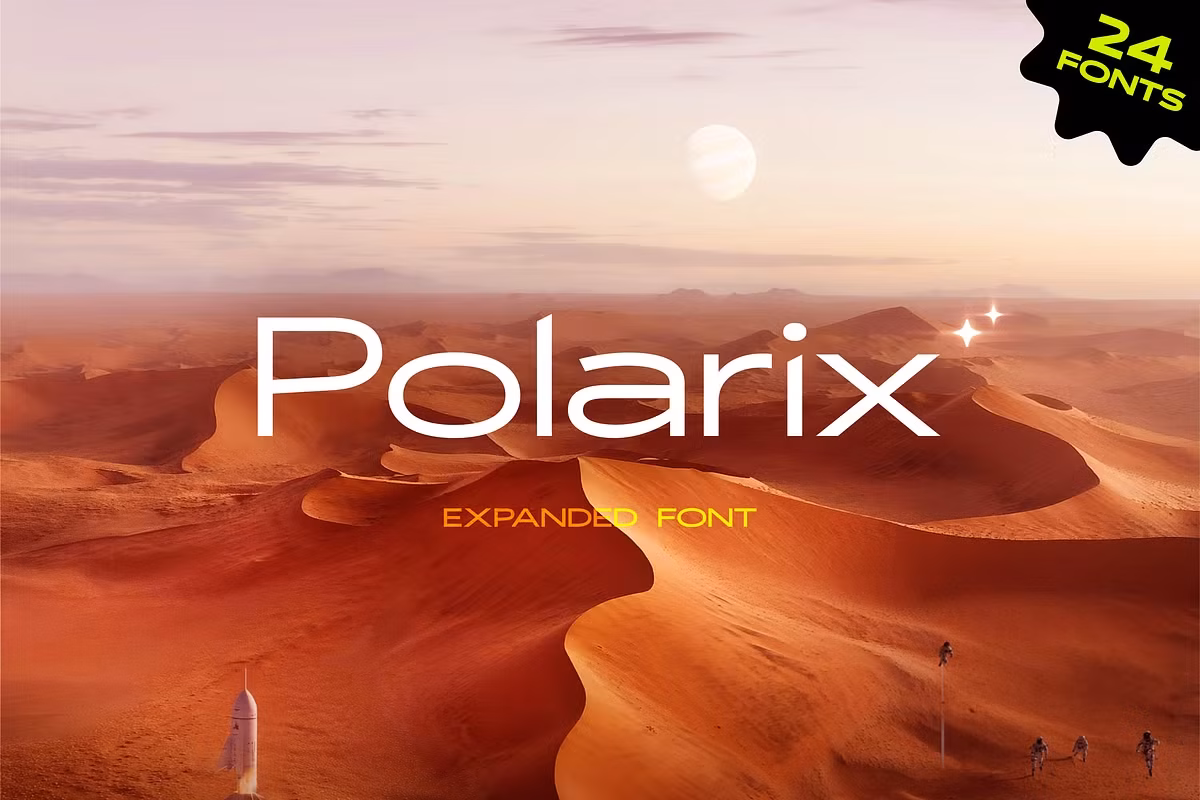
Polarix Font Family – 24 Fonts Free Download is an extensive and versatile typeface family with 24 different fonts designed to fit a wide range of creative projects. This font family includes multiple weights and styles, from sleek and modern sans-serif fonts to more expressive and decorative versions, making it perfect for everything from body text to bold headlines, logos, branding, websites, and more.
The variety of options within the Polarix Font Family allows for complete flexibility, whether you're designing for print, digital media, or high-end branding. Whether you're looking for elegance, readability, or a bit of flair, this family gives you the tools to create impactful, cohesive designs across all platforms.
Create versatile, professional designs with the expansive range of the Polarix Font Family! ✨